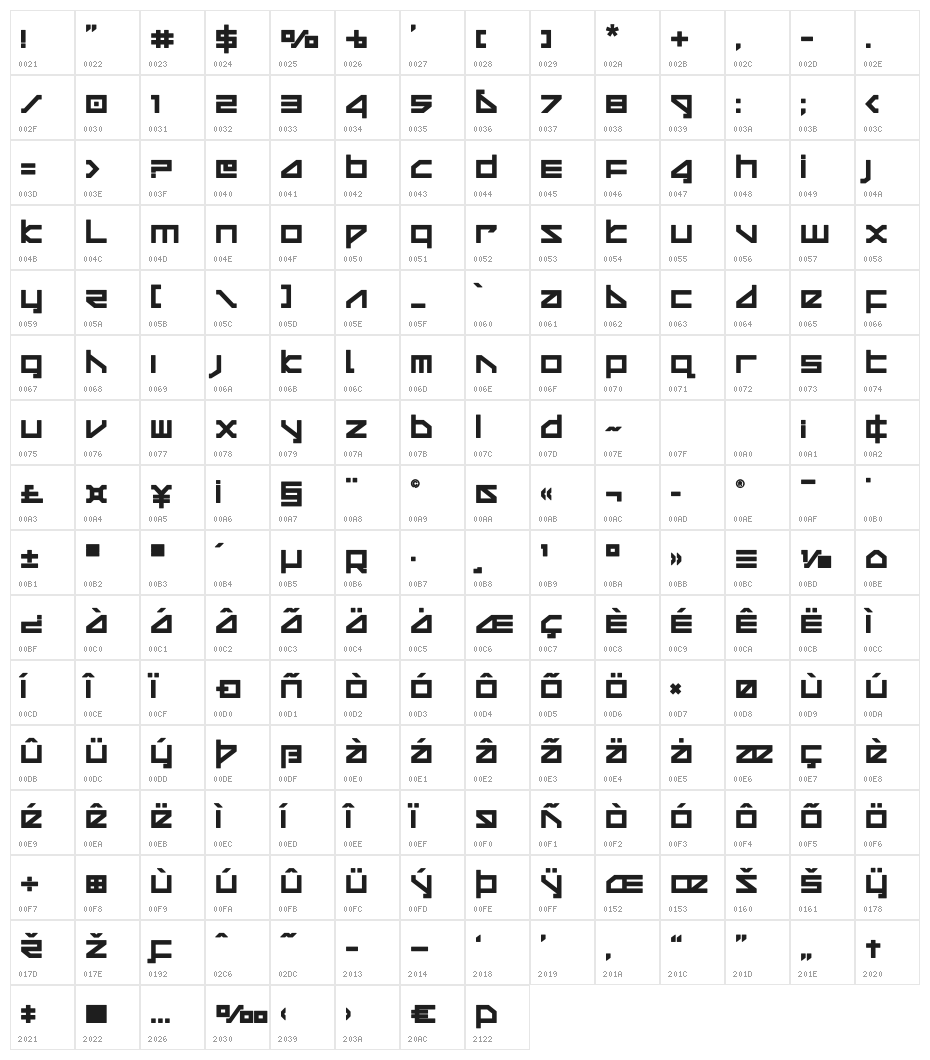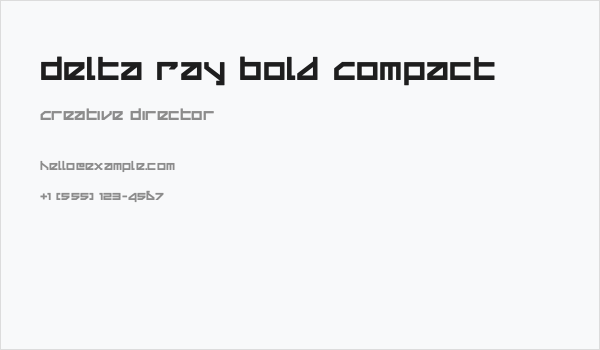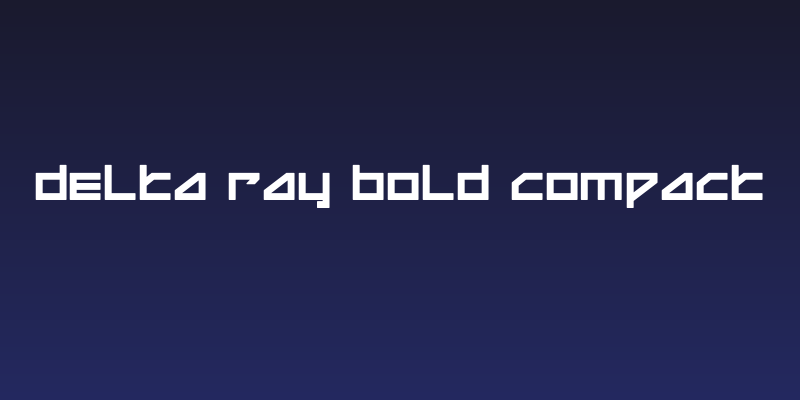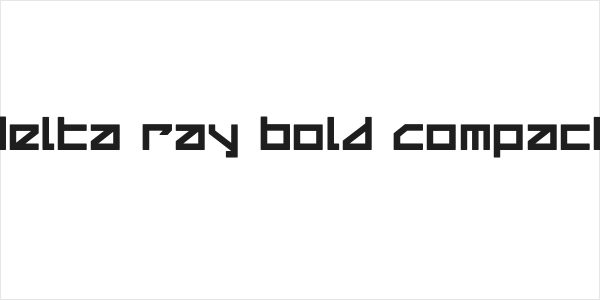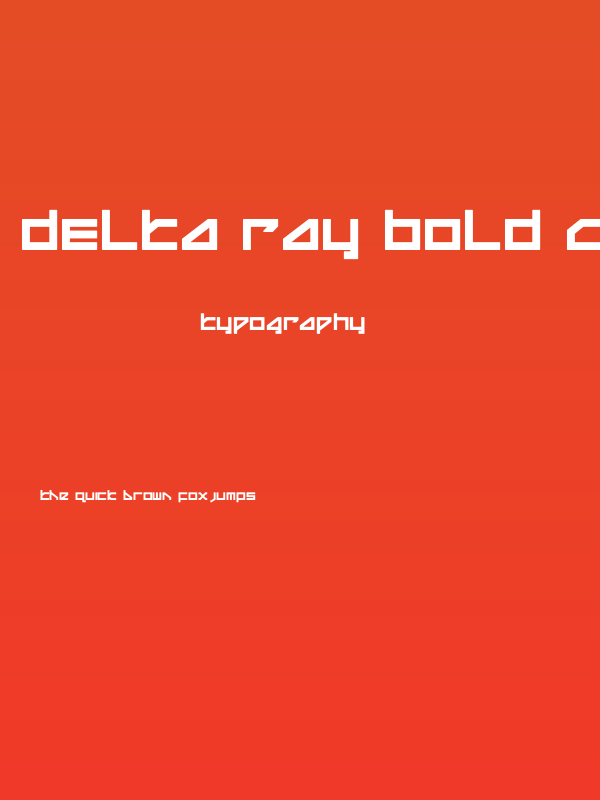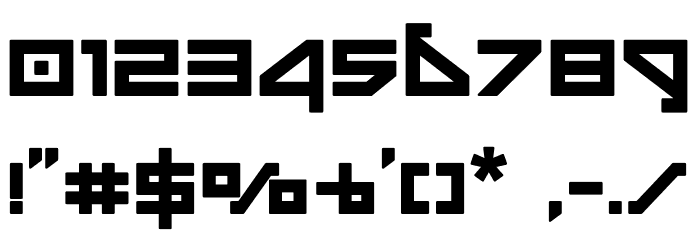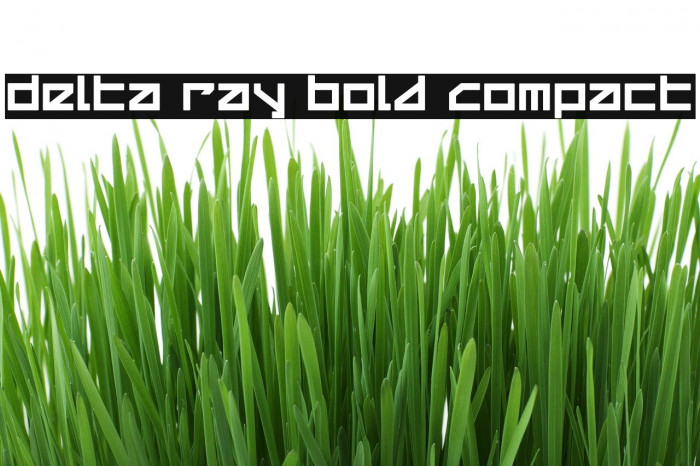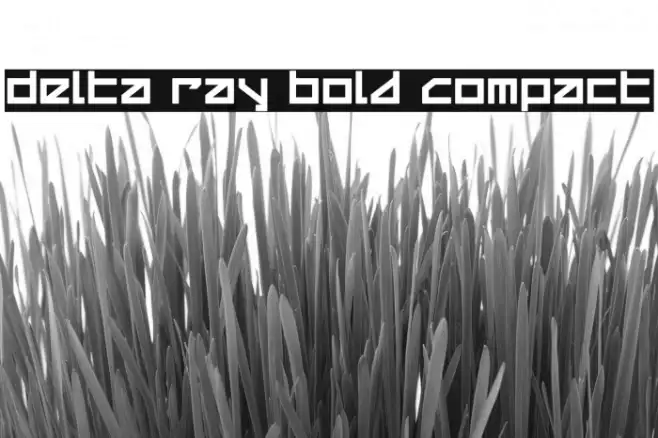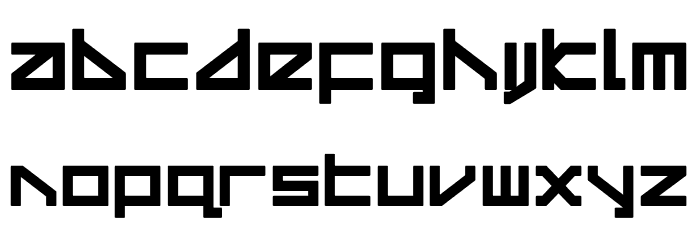
Delta Ray Bold Compact Font
Delta Ray Bold Compact Description
This font features a bold and compact design with a futuristic and geometric aesthetic. The characters are constructed with sharp angles and straight lines, giving it a modern and tech-inspired look. The uppercase and lowercase letters maintain a consistent style, with the lowercase mirroring the uppercase in form but slightly reduced in size. The numerals and special characters follow the same angular design, ensuring uniformity across all glyphs. This font's distinct style makes it ideal for projects that require a strong visual impact.
| Proposed Projects | Ideal for technology branding, video game titles, sci-fi movie posters, and modern digital interfaces. |